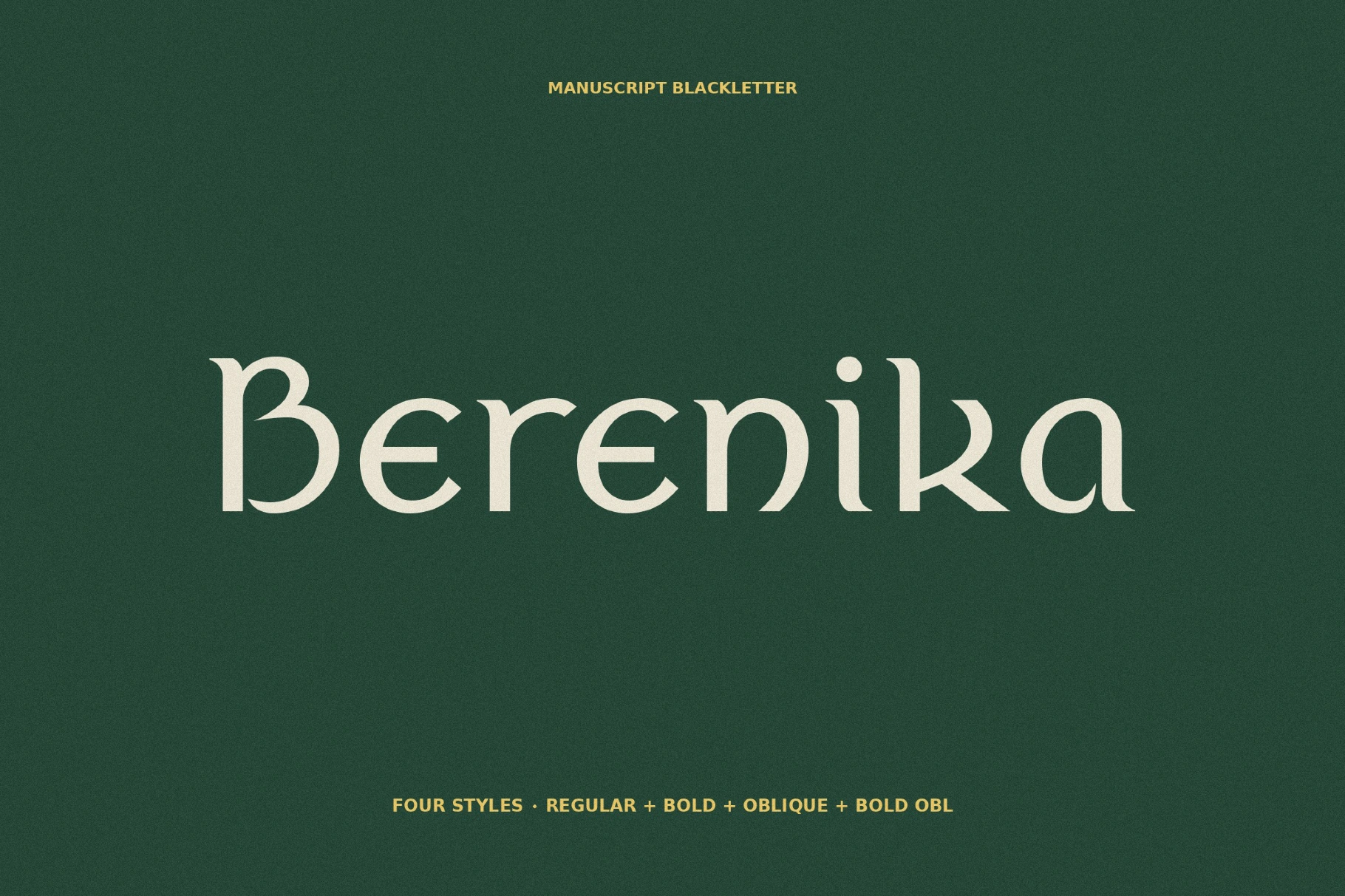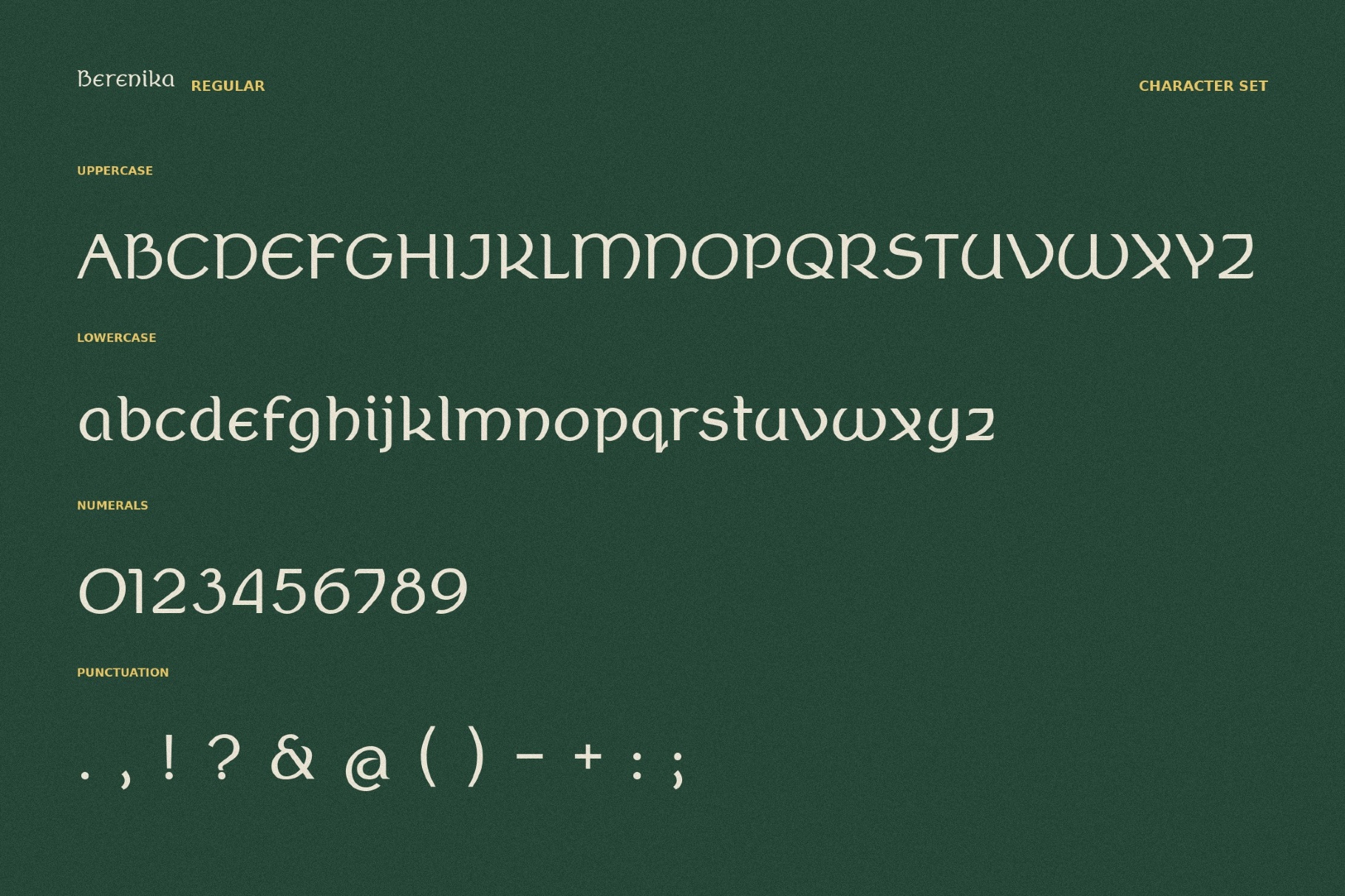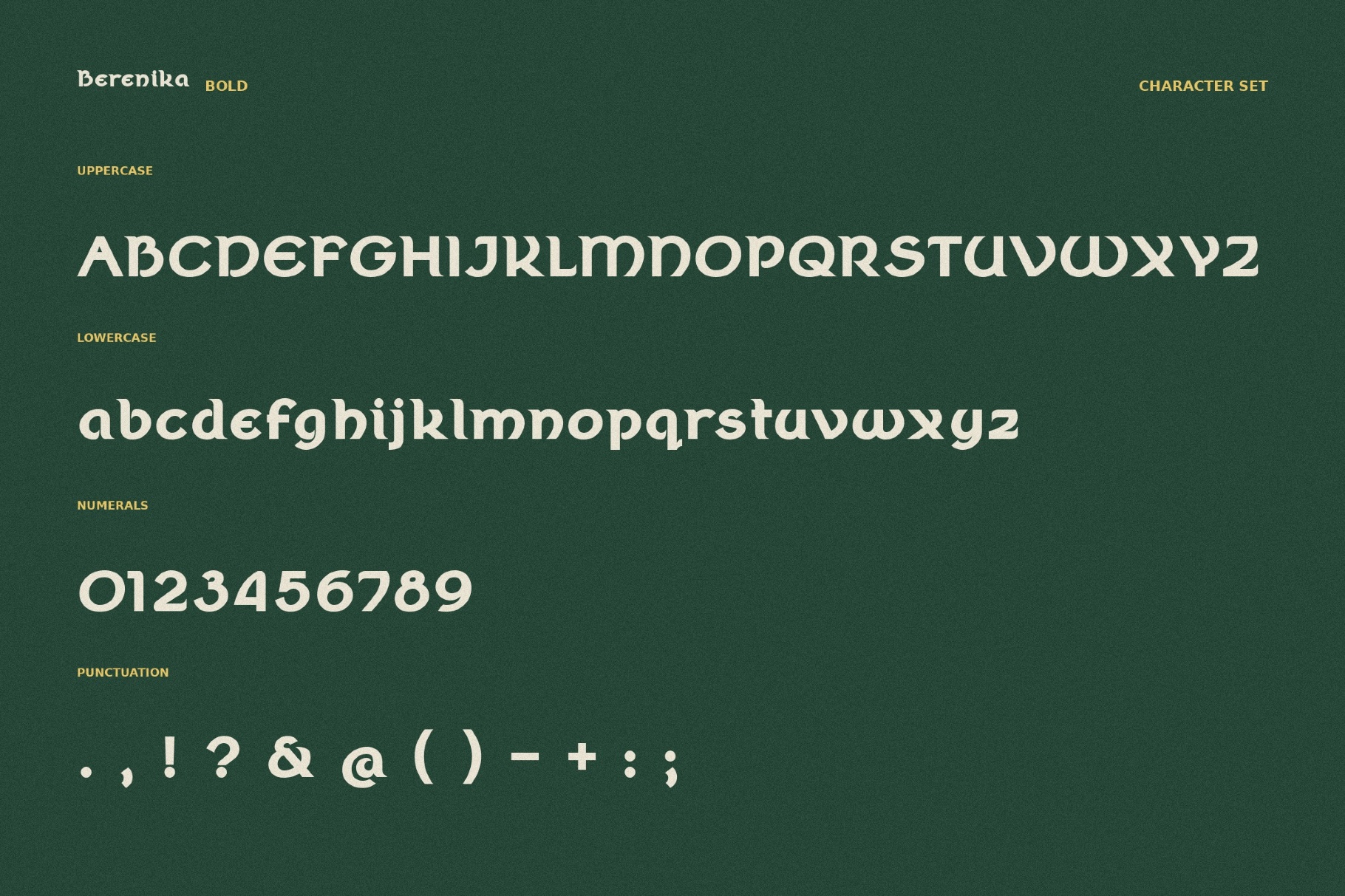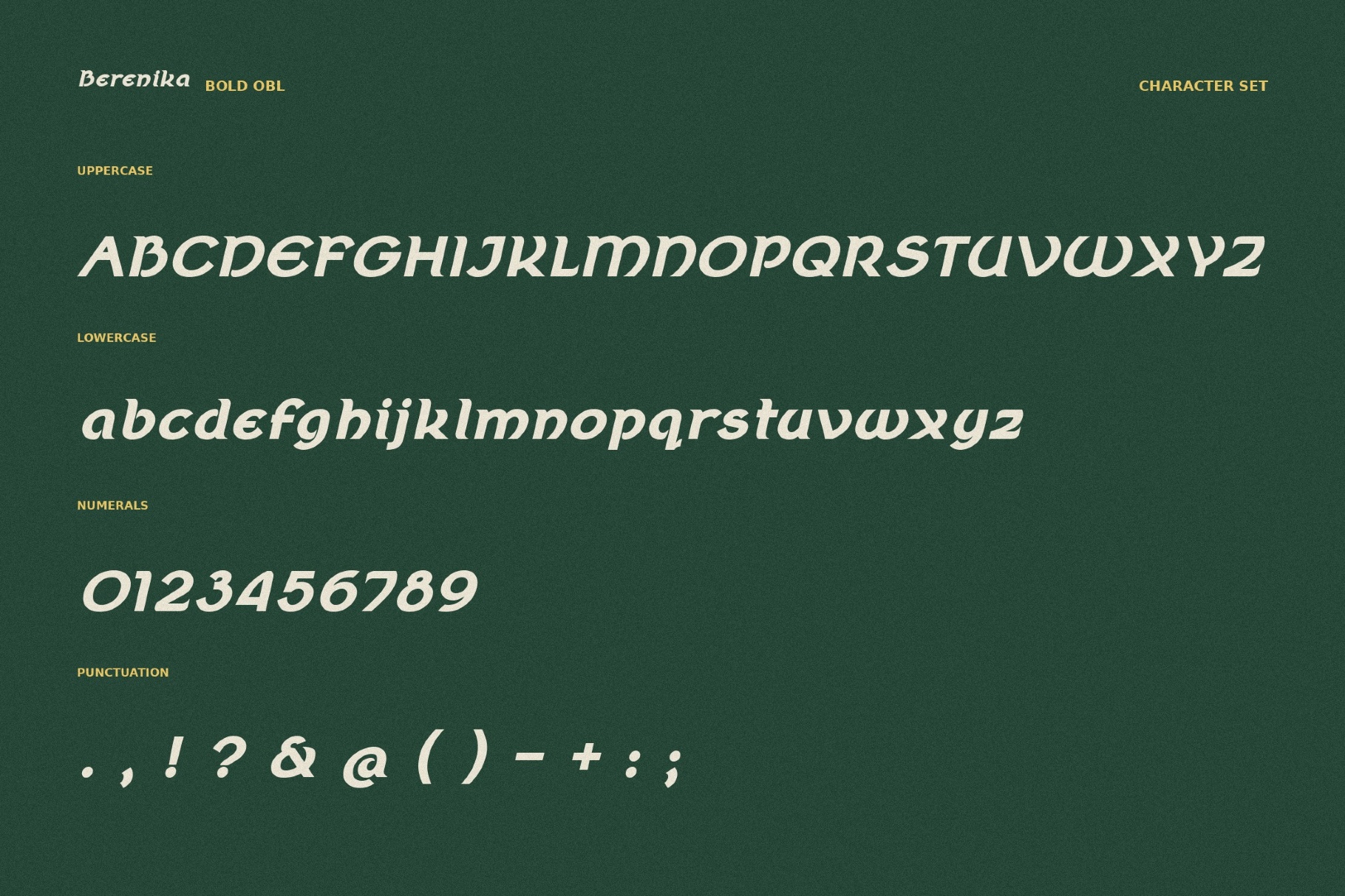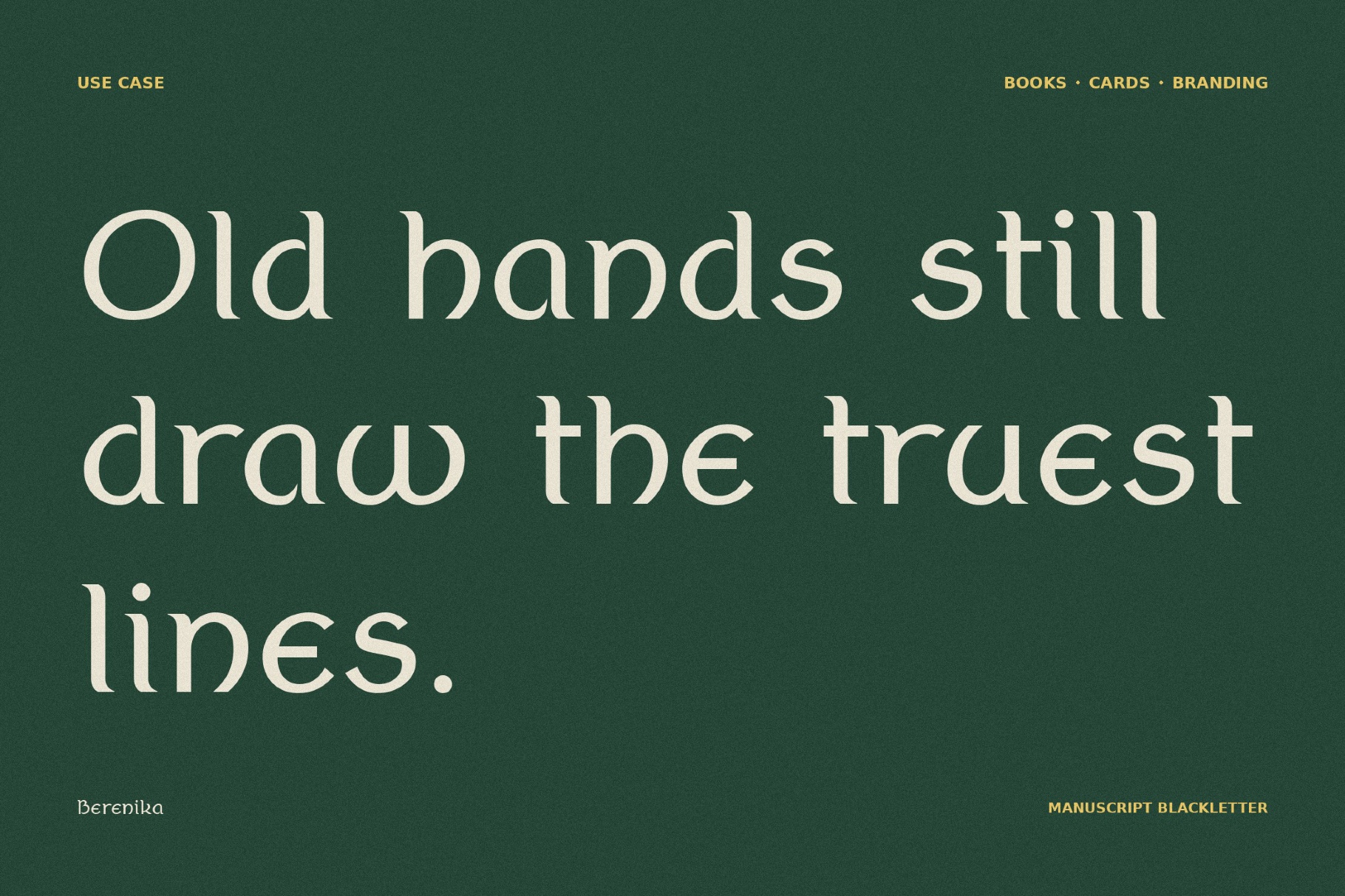
Berenika - Celtic Font Family
Berenika
Berenika softens medieval letterforms into rounded uncial shapes with graceful terminals and balanced proportions, as if pulled from Celtic manuscripts, early Renaissance book hands, and carved monastery inscriptions.
The old-world warmth font is composed enough for polished, professional layouts, making it especially useful for fantasy covers, wedding stationery, heritage logos, museum posters, wine labels, ceremonial invitations, boutique packaging, and editorial titles.